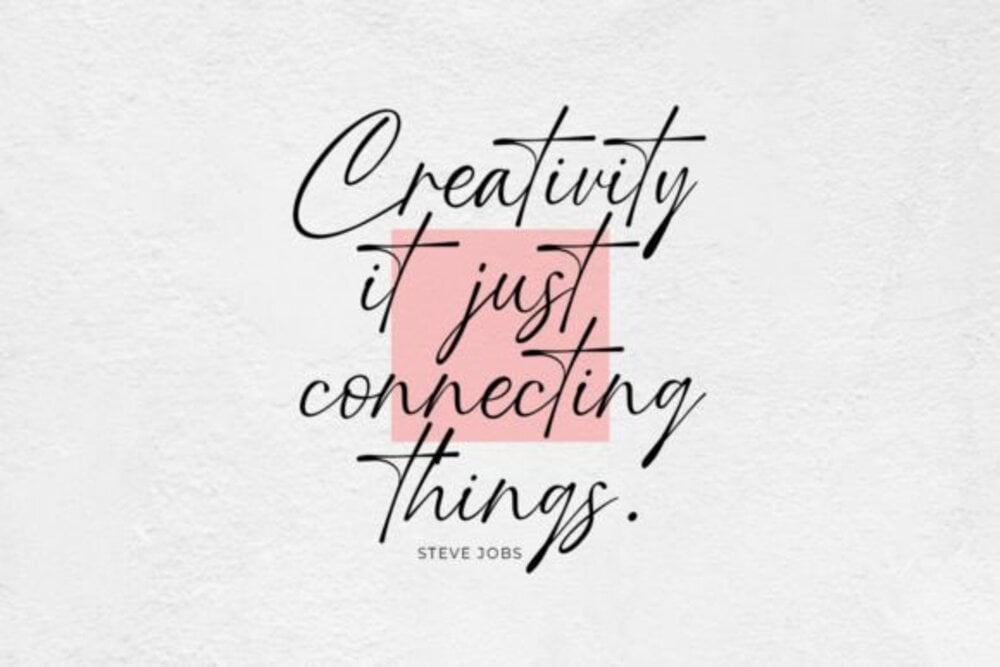
March Shine Font
March Shine is a bright and cheerful handwritten font with a bouncy, playful style. Its rounded letterforms and slightly whimsical feel evoke a sense of springtime joy and optimism, perfect for greeting cards, children’s designs, and social media posts. March Shine adds a touch of lighthearted fun to any project, while remaining legible and versatile. It’s ideal for designs that celebrate new beginnings and a fresh, vibrant aesthetic.